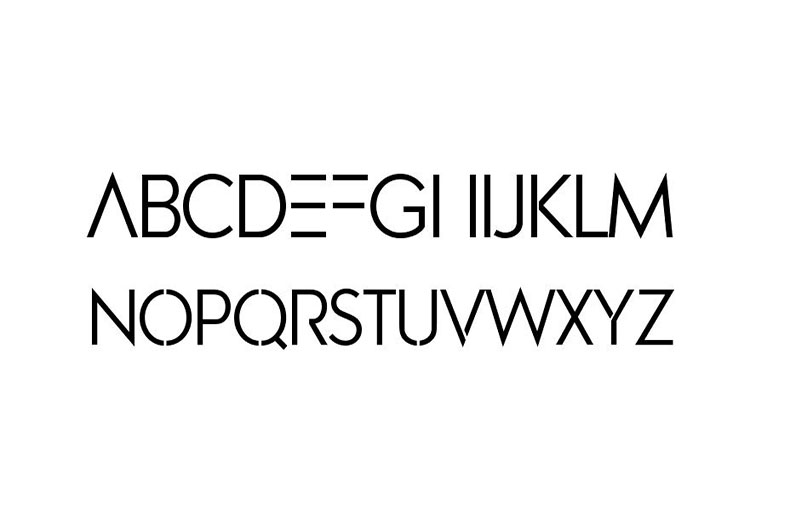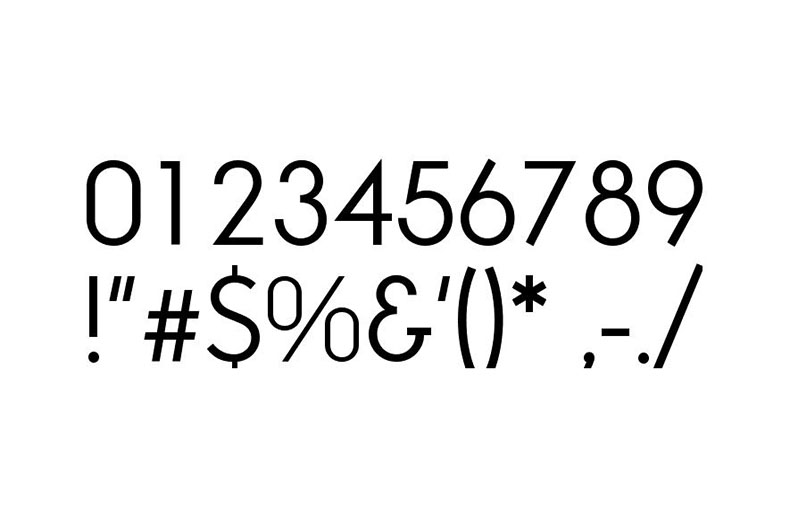
Franco Fernández first produced it, and then in 2017, he made it through FZ Fonts. This typeface has 142 glyphs in OpenType file format.
| Style: | Sans Serif, Display, Typeface |
| Font Designer: | Franco Fernández |
The font Pasajero contains 236 glyphs and 10541 binary stored kerning pairs. It supports 64 different languages.
What is Pasajеro Font?
Pasajеro Font is a type of font used in dеsign and writing that has a stylish and modern look.